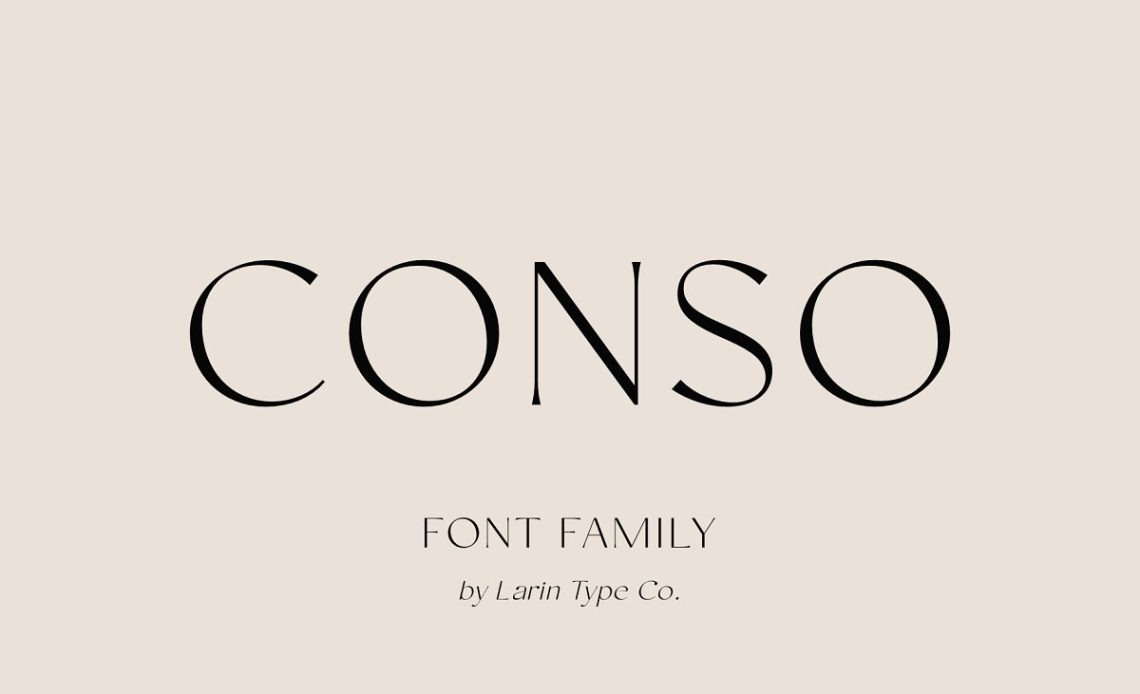
Looking for a versatile and modern sans-serif font family that can bring a unique touch to your design projects? Look no further than CONSO, created by Pasha Larin. This elegant and contrasted font family is perfect for creating logos, advertising, packaging, book covers and magazines, headings, descriptions and much more.
With seven weights from thin to bold, this multi-purpose font family is easy to read and includes stylistic alternates with a teardrop-shaped tail for uppercase and lowercase characters. These stylistic alternates allow you to easily add personality and style to your projects, making them more stylized and unique. Plus, all characters in this font have PUA encoding and OpenType features.
CONSO is not just limited to the English language, it includes support for a variety of international symbols, allowing you to expand your design projects across different languages and cultures. Please note that Stylistic Alternates will require professional design software such as Adobe Illustrator, Photoshop, InDesign or Inkscape.